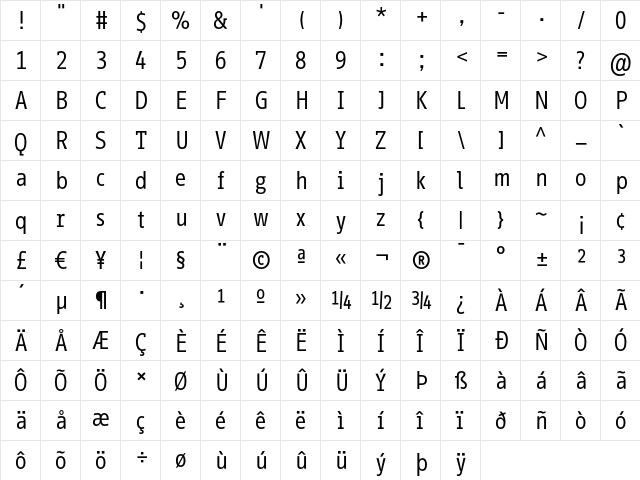
InfoOffice Regular
Design Context for InfoOffice Typeface
InfoOffice takes a measured approach to typography — its balanced proportions and neutral character make it a reliable workhorse for both digital and print work.